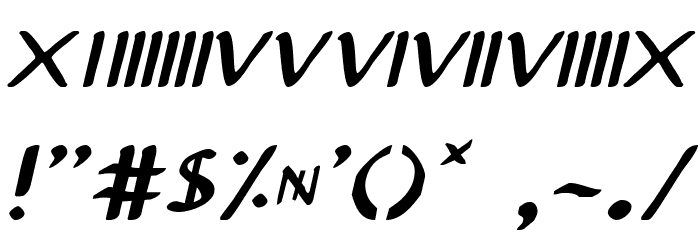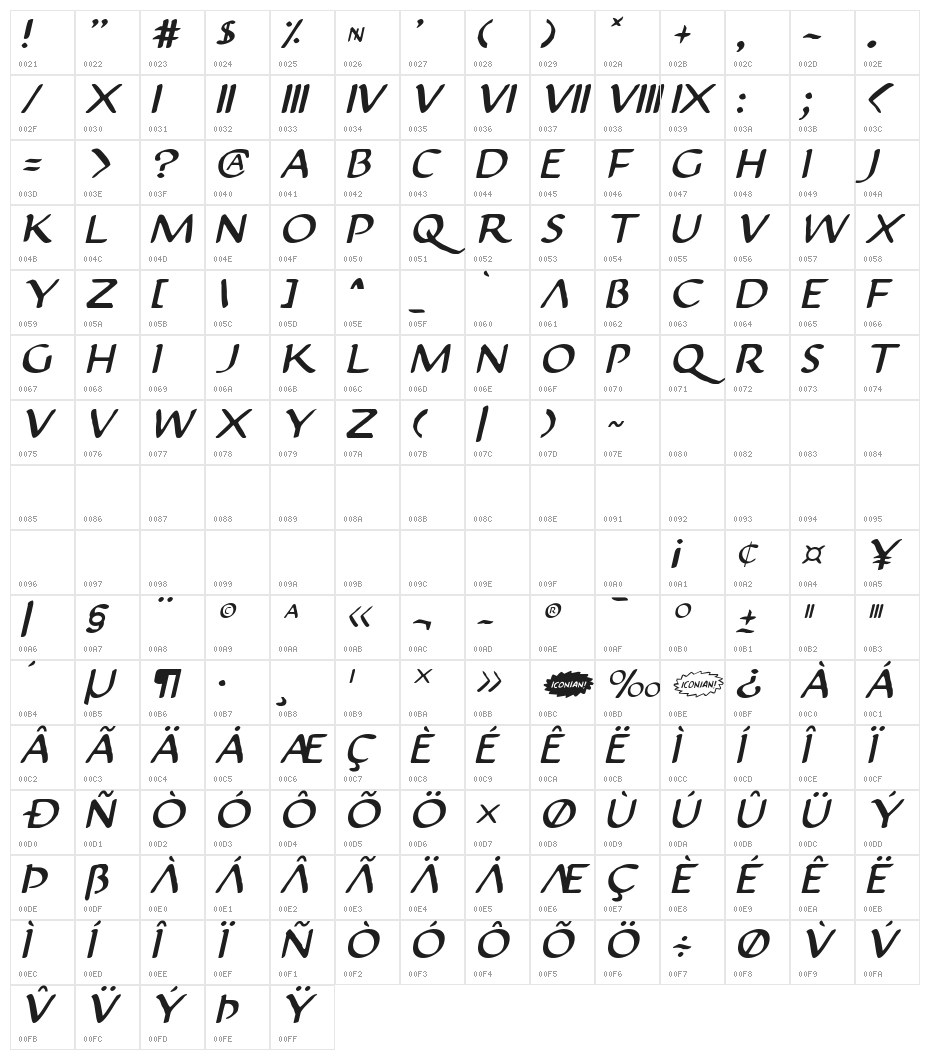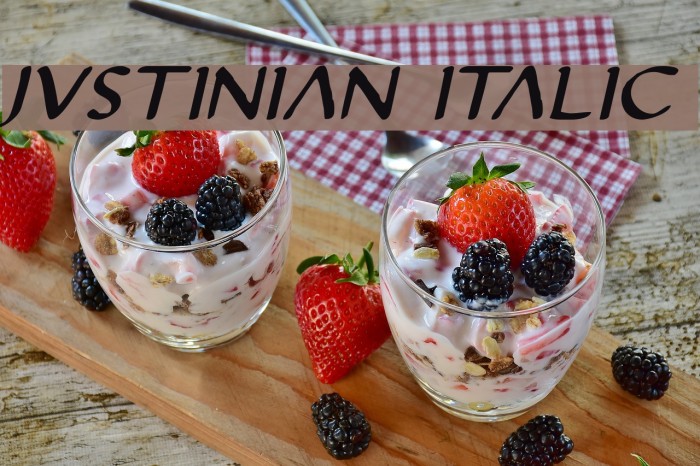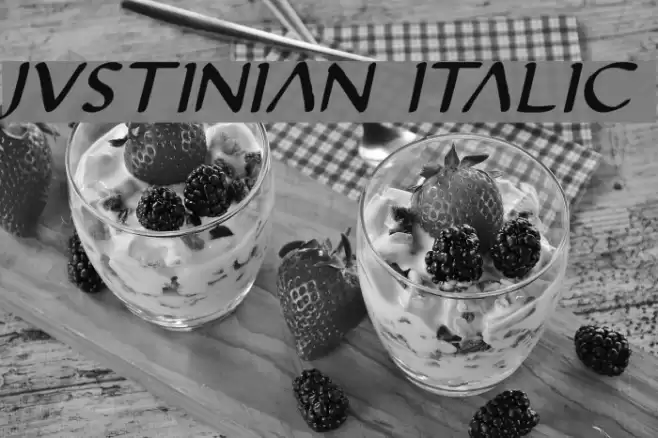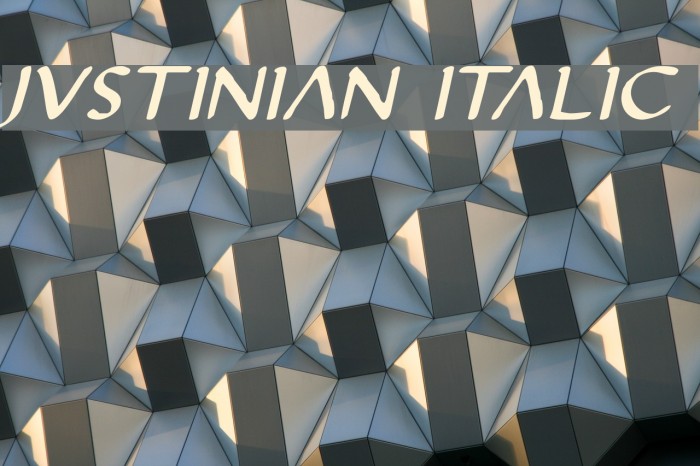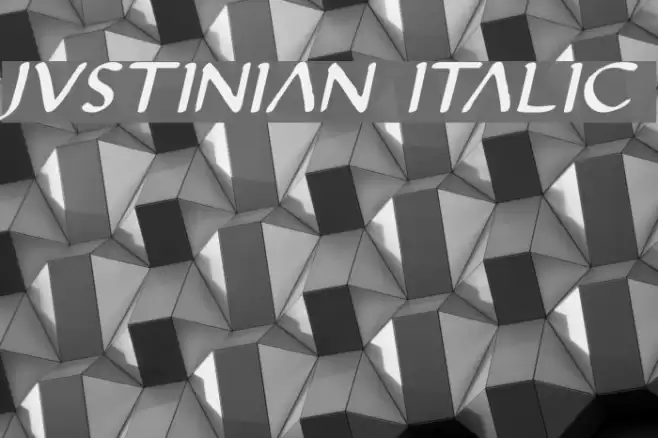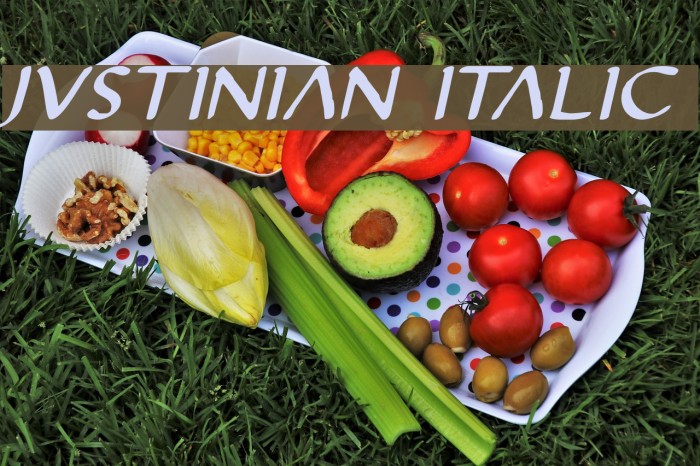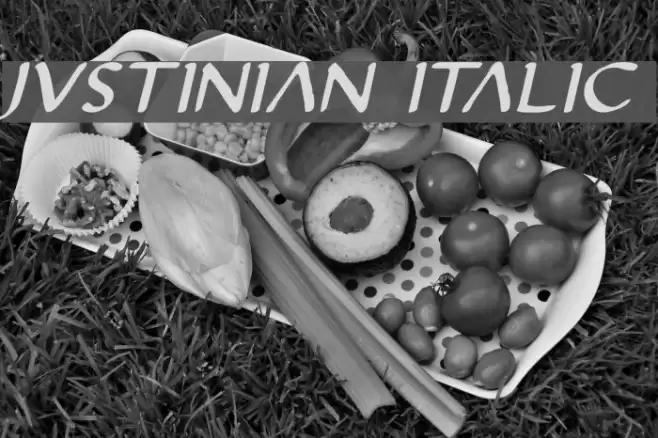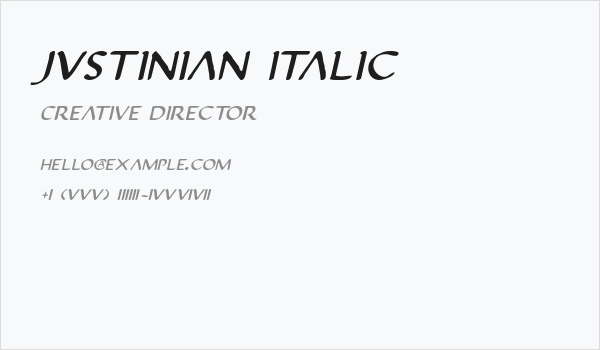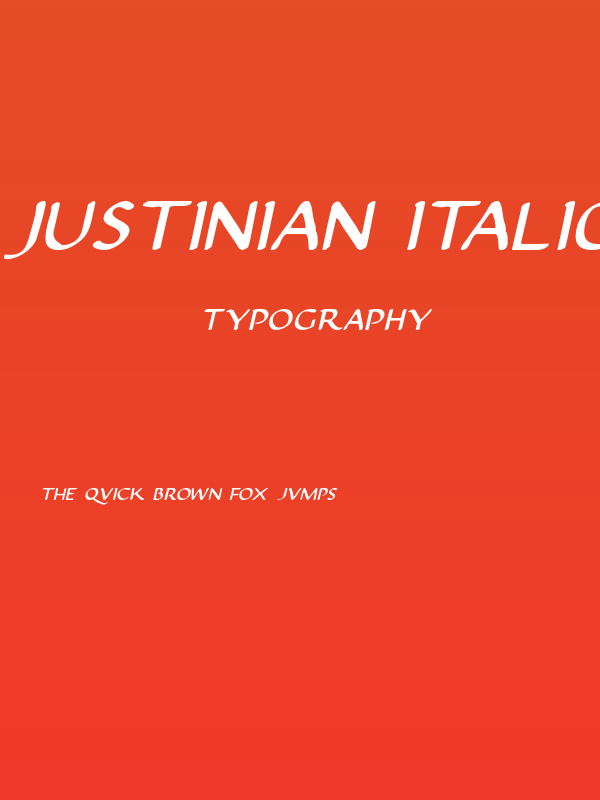
Justinian Italic Font
Justinian Italic Description
This font features a dynamic and elegant italic style, characterized by its fluid and cursive strokes. The uppercase letters exhibit a graceful slant, enhancing the sense of movement and sophistication. The lowercase letters maintain a consistent flow, complementing the overall aesthetic. The numerals are designed with a similar slant, ensuring uniformity across all characters. Special characters are thoughtfully integrated, maintaining the font's cohesive look. The font's design is suitable for projects that require a touch of elegance and flair, making it ideal for invitations, branding, and editorial design.